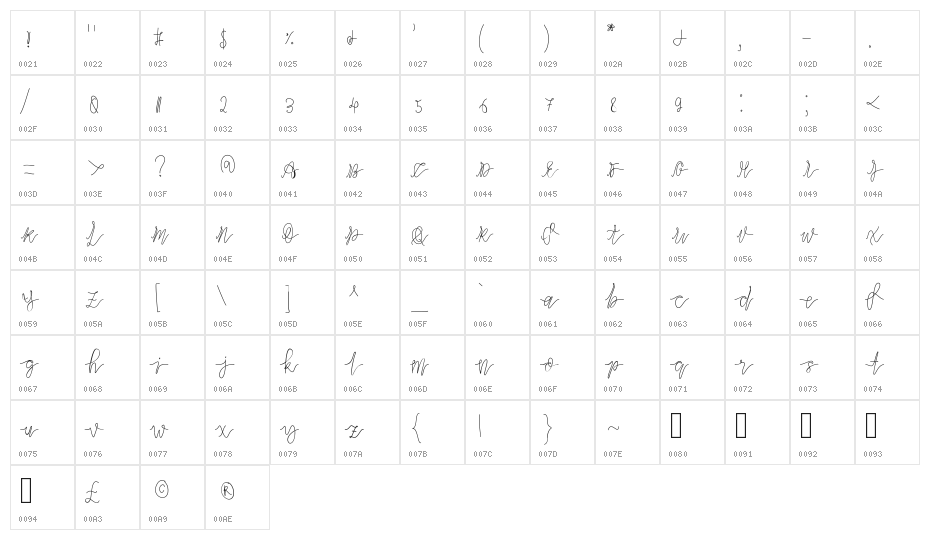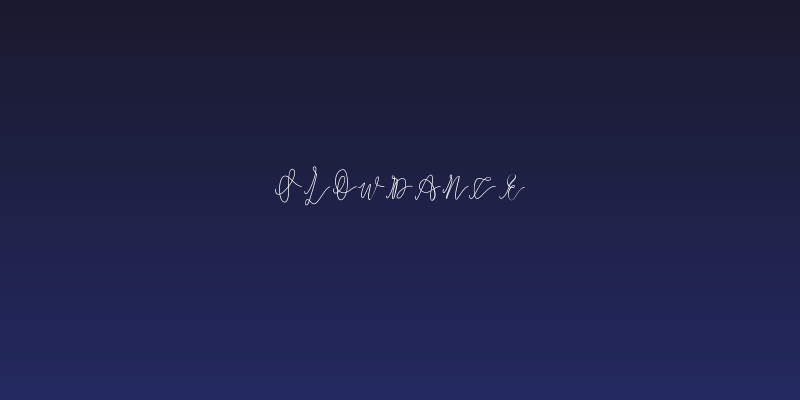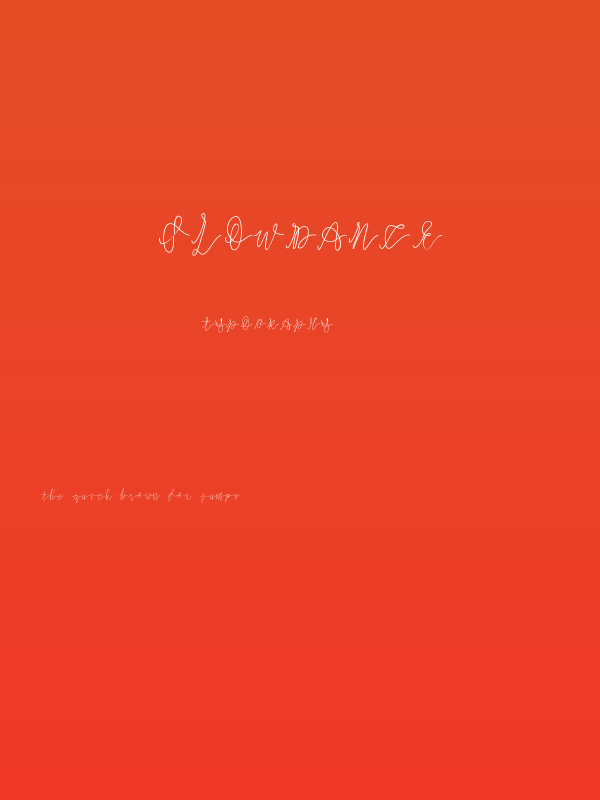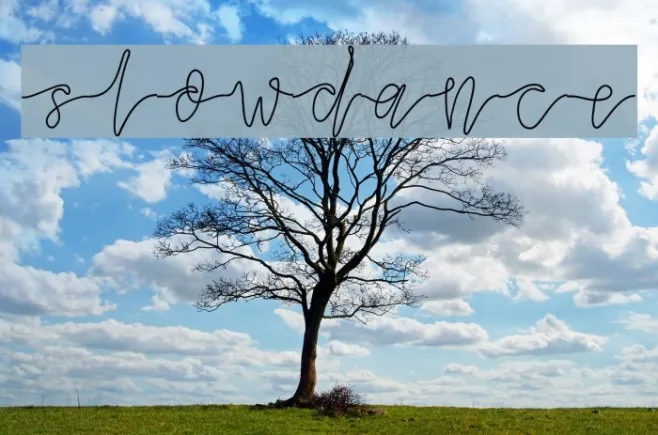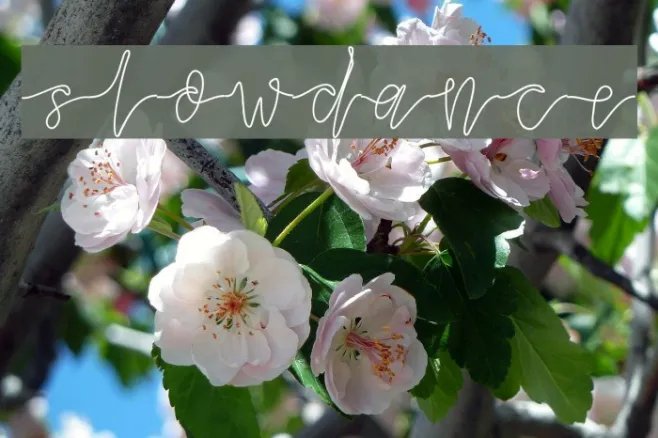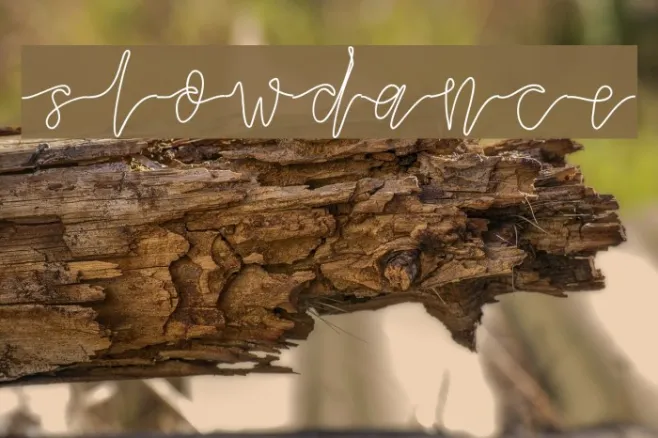
slowdance Font
slowdance Description
This font features a delicate and flowing script style, characterized by its elegant and continuous cursive strokes. Each letter seamlessly connects to the next, creating a harmonious and fluid appearance. The uppercase letters are slightly more ornate, with loops and swirls that add a touch of sophistication. The lowercase letters maintain a consistent height, enhancing readability while preserving the font's graceful aesthetic. Numbers and special characters are designed to match the overall style, with a playful yet refined look. The thin lines and gentle curves make this font ideal for projects that require a personal and artistic touch.
| Proposed Projects | Ideal for wedding invitations, greeting cards, personal branding, and artistic projects. |